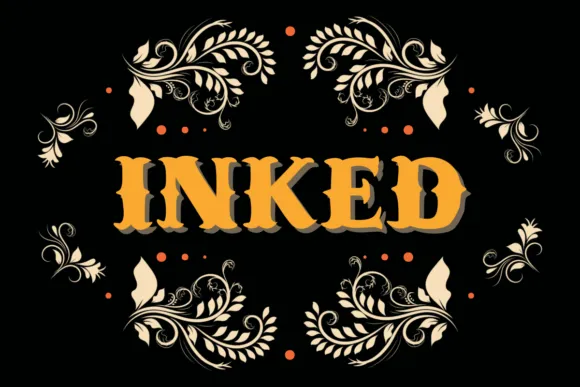
Tattoo Designs Font Download
A blackletter Tattoo Designs Font configuration is like venturing into bygone eras with its extravagant, complex letters.
Tattoo Designs Font having a piece of dated calligraphy for all time scratched on your skin, adding a dash of history and polish to your body craftsmanship.